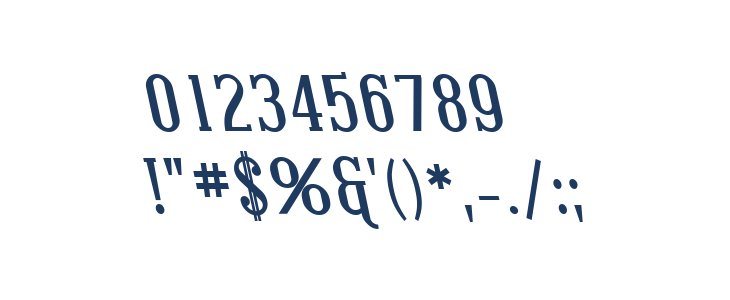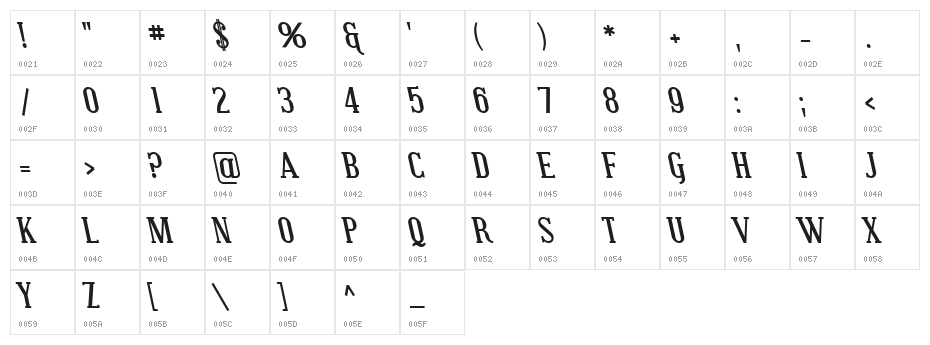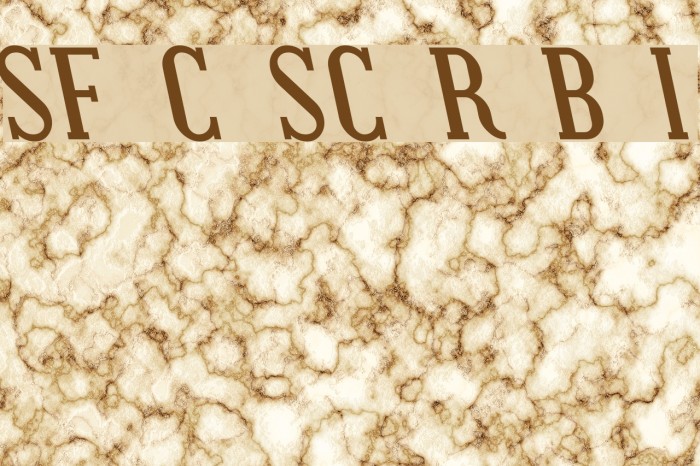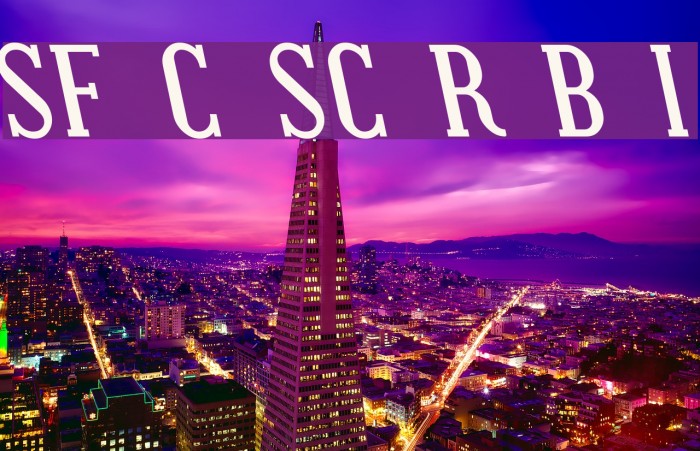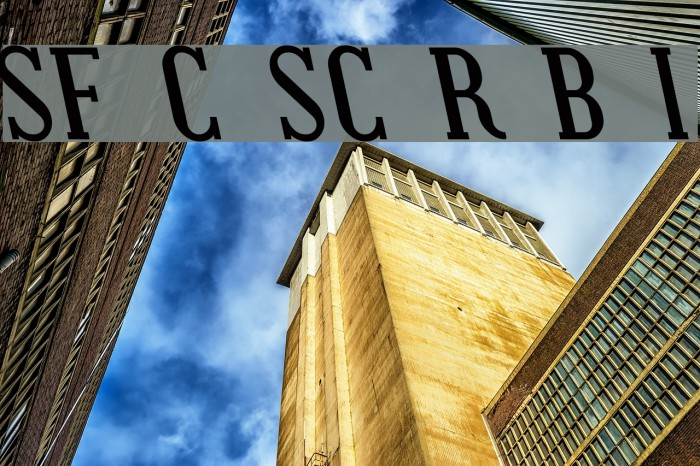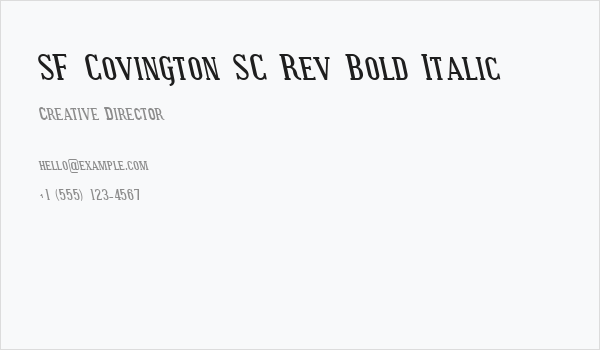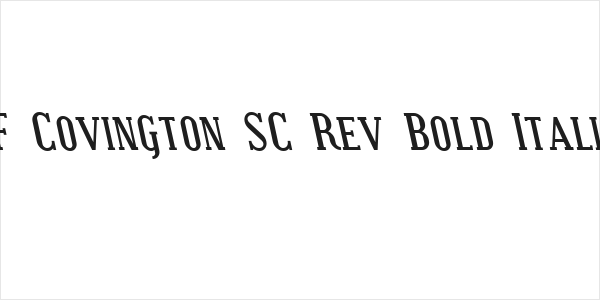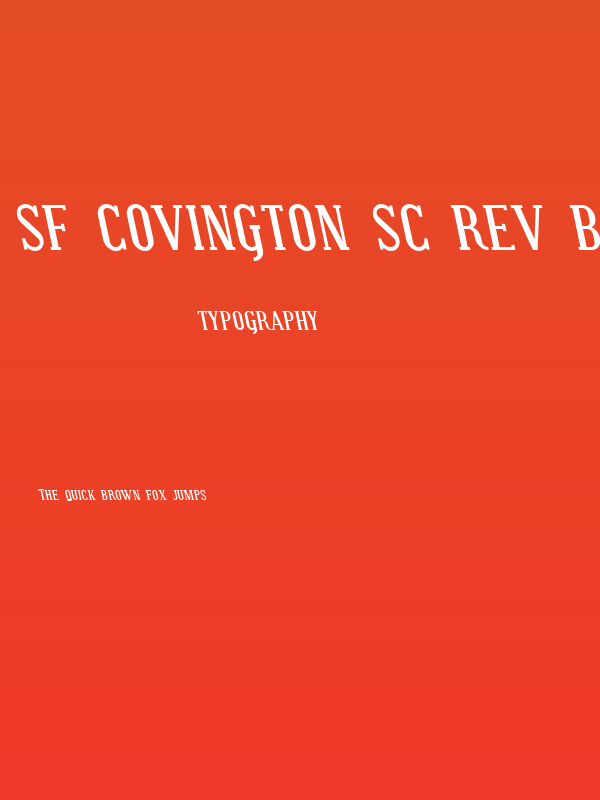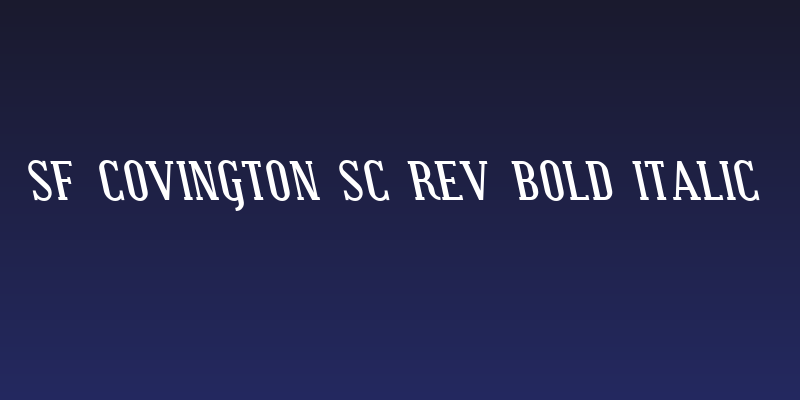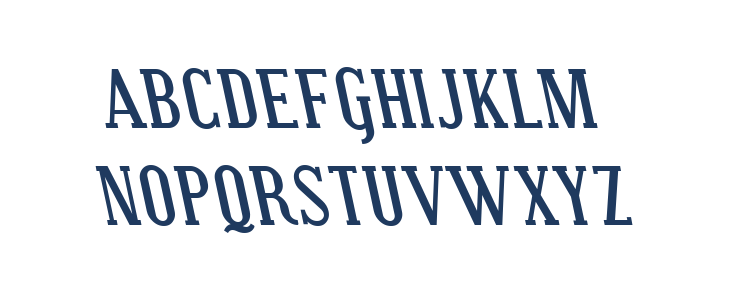
SF Covington SC Rev Bold Italic Font
SF Covington SC Rev Bold Italic Description
This font features a bold and italicized style with a strong presence. The characters are slightly condensed, giving it a compact appearance while maintaining readability. The serifs are pronounced, adding a touch of elegance and tradition. The strokes are thick, providing a high contrast that enhances its boldness. The italic slant adds dynamism and movement, making it suitable for impactful headlines and attention-grabbing text. The numbers and special characters are designed consistently with the letters, ensuring a cohesive look across all elements.
| Proposed Projects | Ideal for headlines, posters, branding, and editorial design where a strong, elegant presence is desired. |